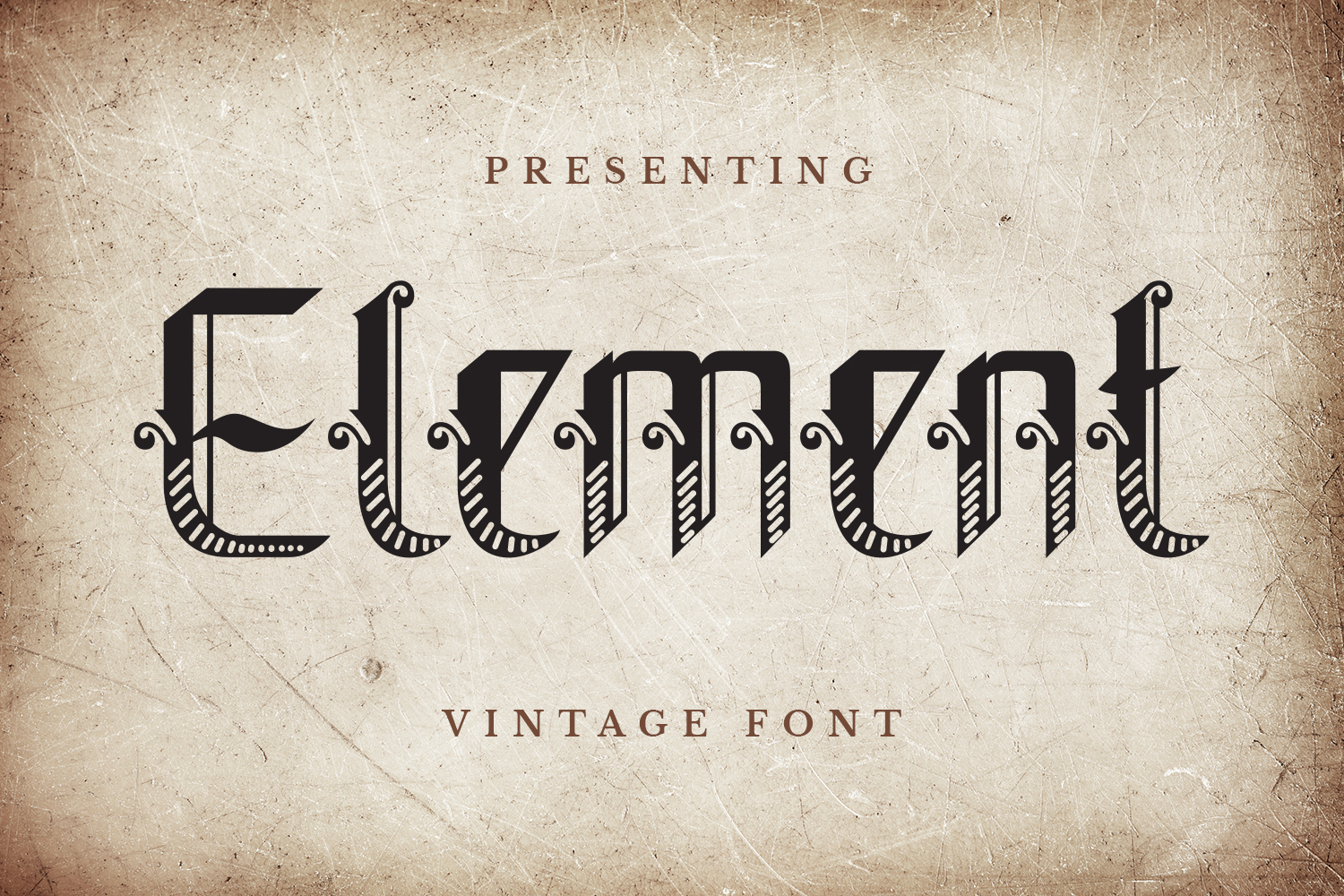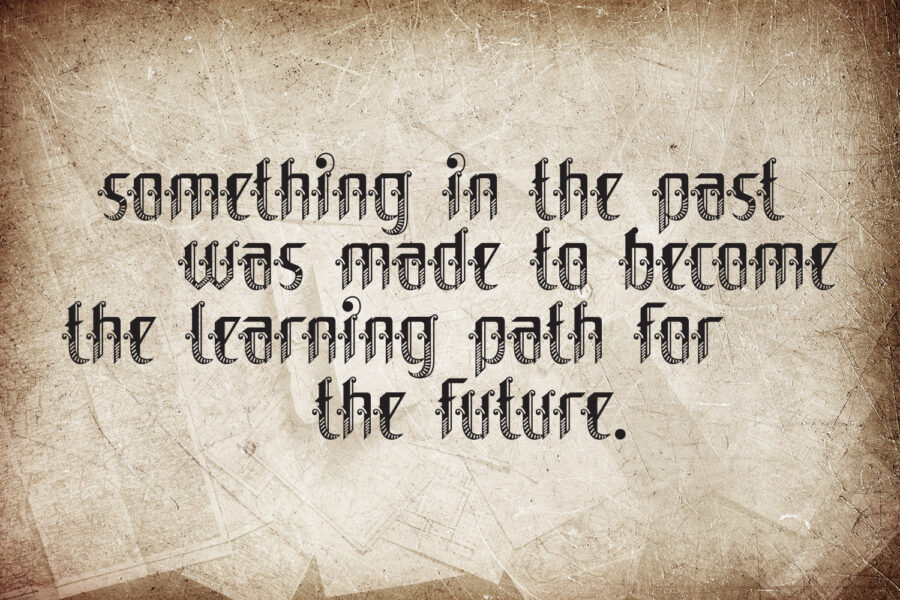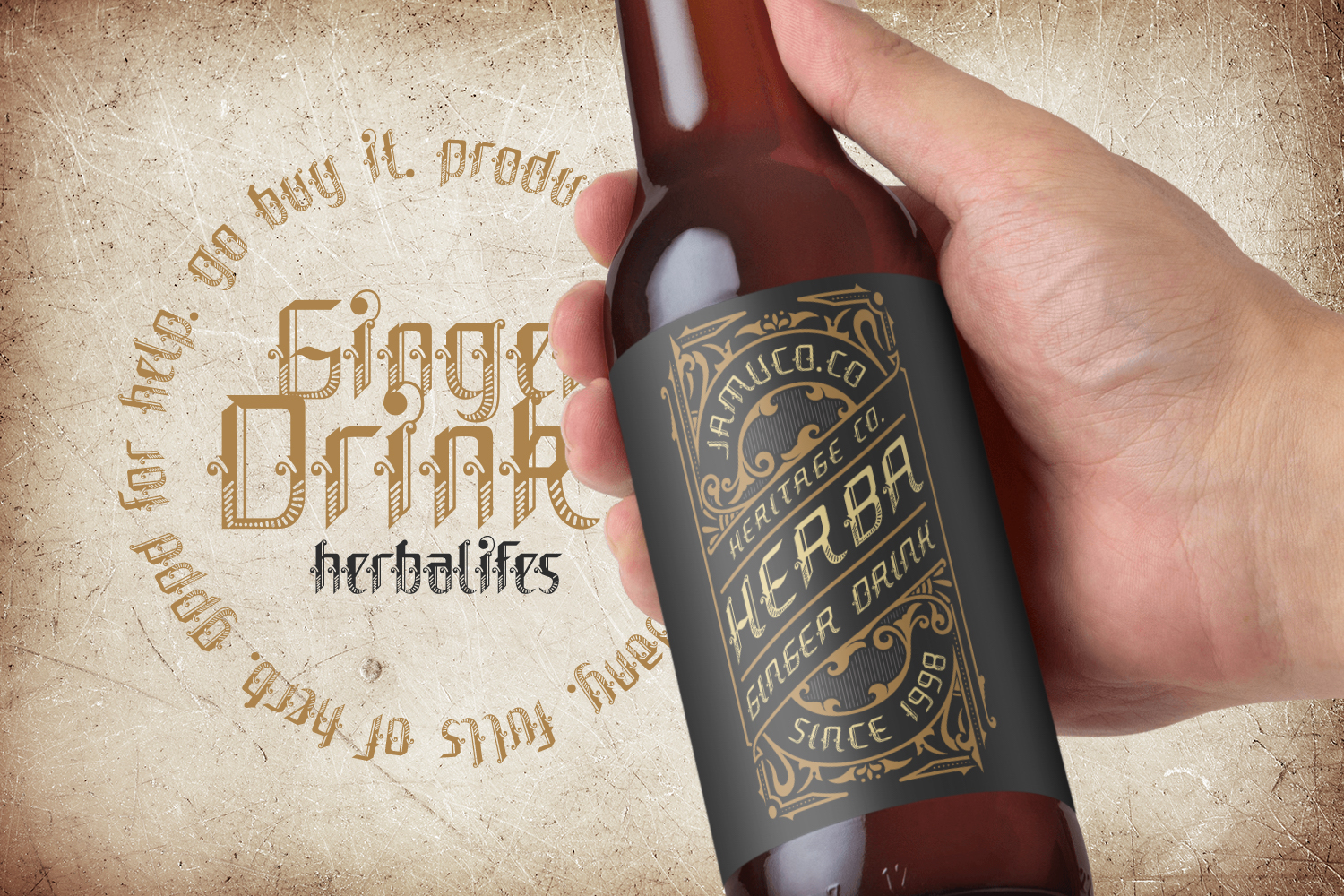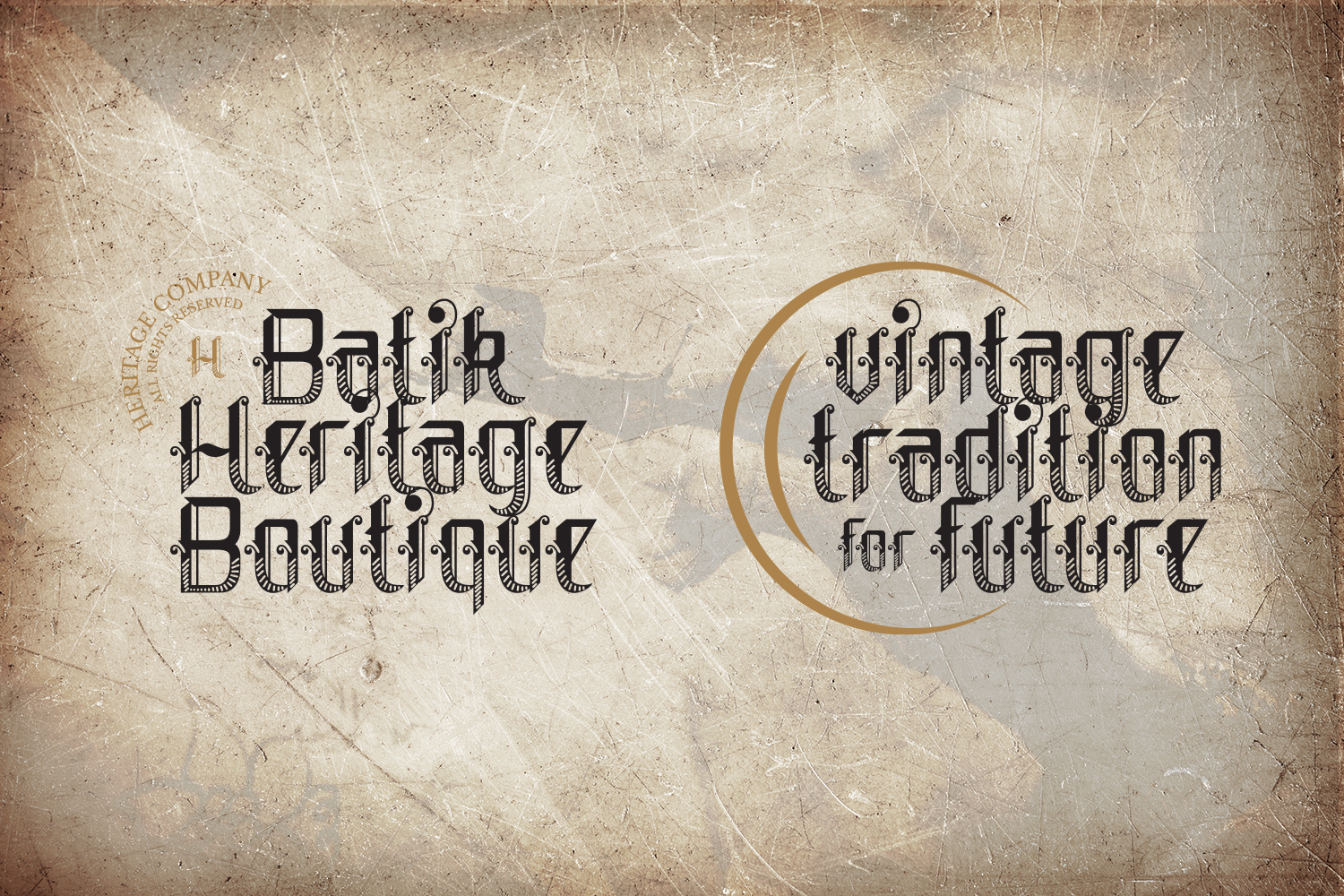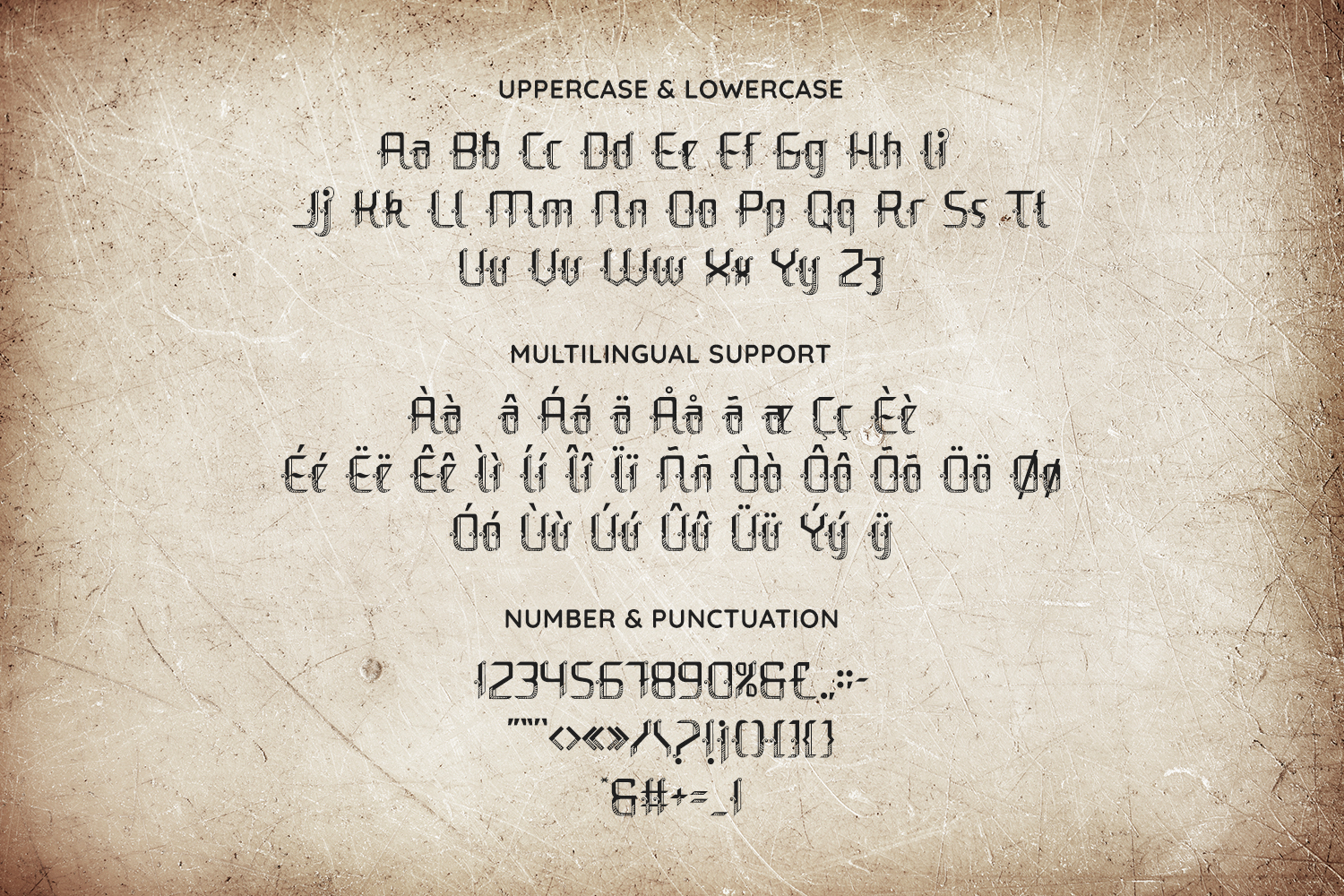
Element is a gothic-inspired vintage font that brings back the essence of old-world typography with a distinct modern twist. Each letter is crafted with ornamental curves and sharp blackletter-inspired edges, evoking a sense of mystery, heritage, and craftsmanship. The striped shading detail in the lower half of each character adds depth and an engraved aesthetic, making it perfect for historical branding, antique-themed designs, and cultural projects.
With multilingual support, uppercase and lowercase sets, and a full set of punctuation, Element is highly versatile. Whether you’re working on packaging, traditional logos, or historical editorial layouts, this typeface stands out with its dramatic flair and stylistic details. It’s ideal for labels, heritage brands, batik boutiques, and everything that aims to express cultural legacy with visual sophistication.